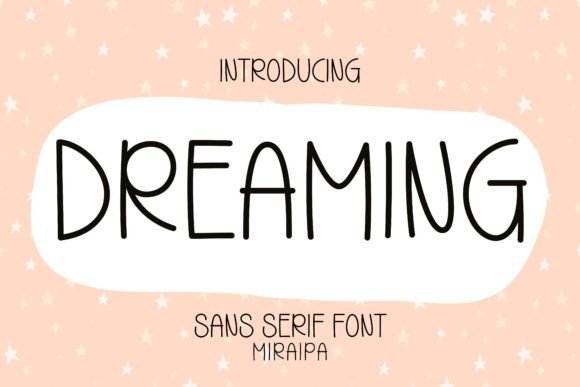
The Moment of Inspiration
Have you ever been brainstorming ideas for a creative project and suddenly, a spark of inspiration hits you? Maybe it’s the perfect phrase, the right image, or in this case, the perfect font. For designers, finding that special something can make all the difference between a good project and a great one. It’s in those moments that we remember the importance of a well-chosen font in bringing our ideas to life.
Enter the Dreaming Font, a charming and whimsical sans serif font that’s designed to add a friendly touch to any project. From posters to social media posts, this font is the perfect addition to your library, adding a unique and playful twist to your designs. Whether you’re working on a child-related project or just want to give your brand a more approachable feel, the Dreaming Font is sure to bring a smile to your audience’s face.
Dreaming Font Key Features
- Font Family: Dreaming Font is a sans-serif font family with a unique, dreamy aesthetic.
- Unique Characteristics: Features a distinctive, hand-drawn feel with subtle irregularities, giving it a personal and emotive touch.
Dreaming Font Review
I recently had the chance to work with the ‘Dreaming Font’, and I must say, it’s an intriguing choice. ✨ One of the standout features of this font is its dreamy, ethereal quality, making it perfect for projects that need a touch of whimsy.
The Dreaming Font has a wide range of uses, from book covers to greeting cards, and it’s versatile enough to adapt to different styles. ✨ The font’s unique letterforms and subtle nuances add a layer of sophistication to any design.
Here are some pros and cons of using the Dreaming Font:
- ✨ Unique and dreamy aesthetic
- ✨ Versatile and suitable for various projects
- ⚠️ Limited legibility in smaller sizes
- ⚠️ May not be suitable for body text due to its flowing lines
Overall, I’d say the Dreaming Font is a great choice for designers who want to add a touch of magic to their projects. However, it’s essential to use it thoughtfully and consider the context in which it will be used.
Tips for Getting the Most Out of Dreaming Font
To get the most out of Dreaming Font, consider the following tips:
- Use Dreaming Font for creative projects such as invitations, posters, and social media graphics.
- Combine Dreaming Font with other creative fonts for a unique and eye-catching look.
Common Use Cases for Dreaming Font